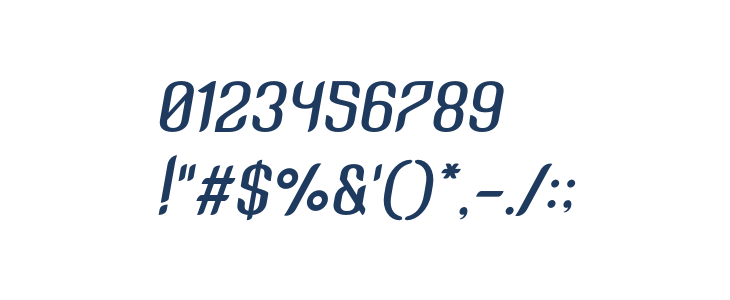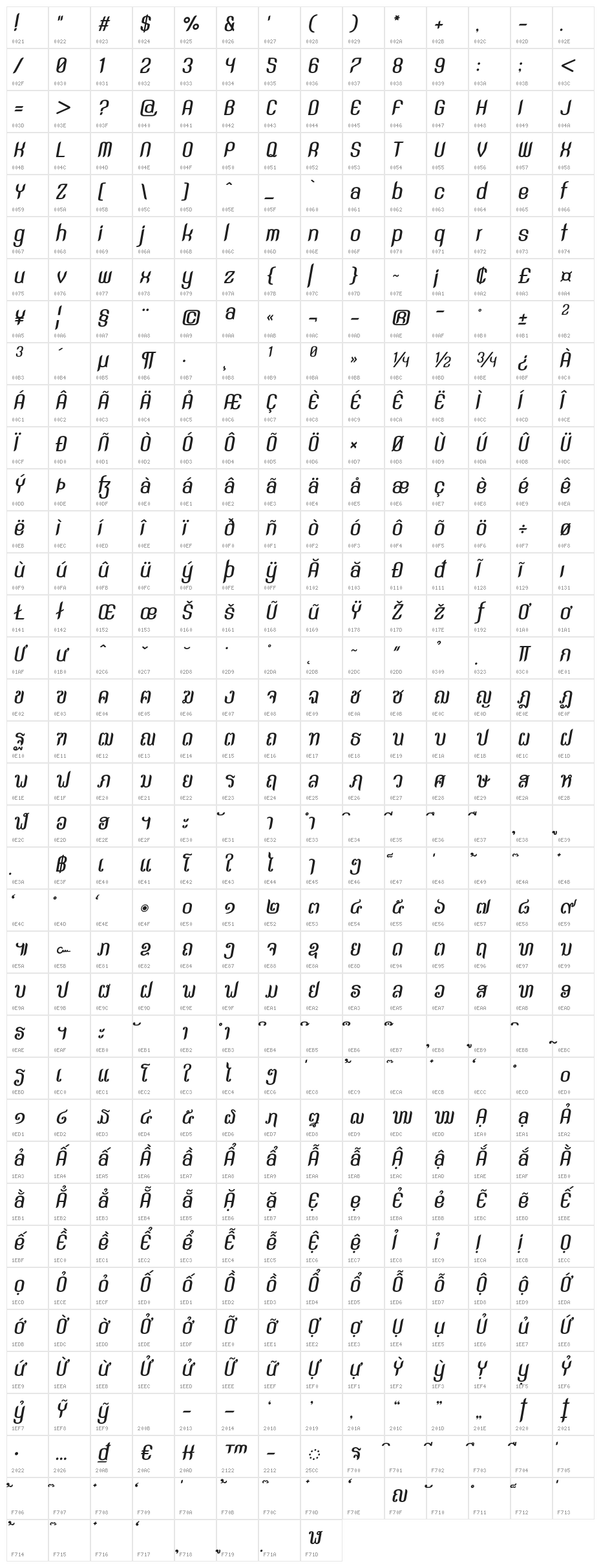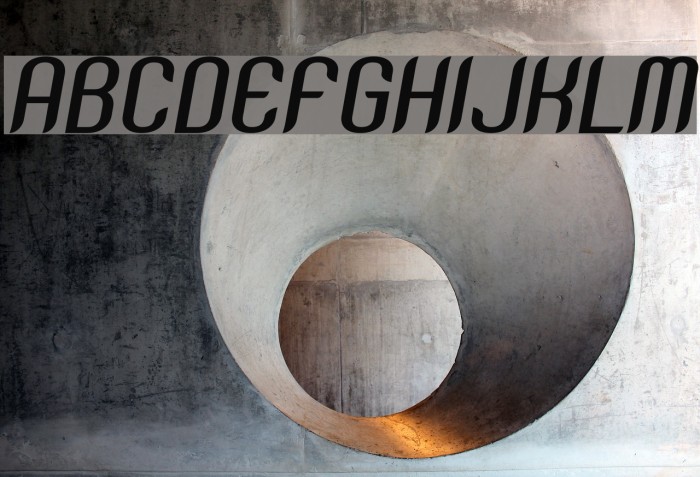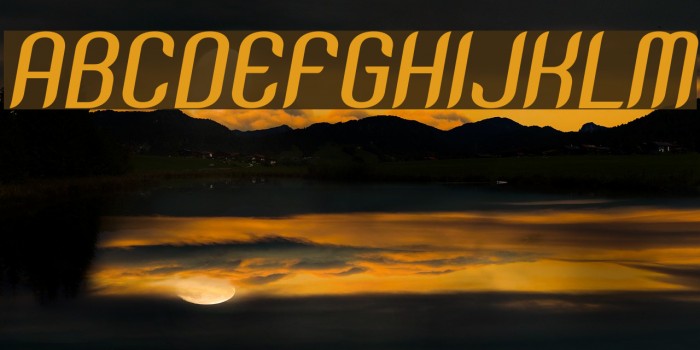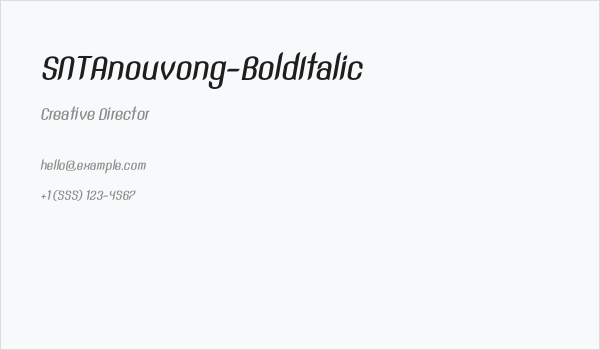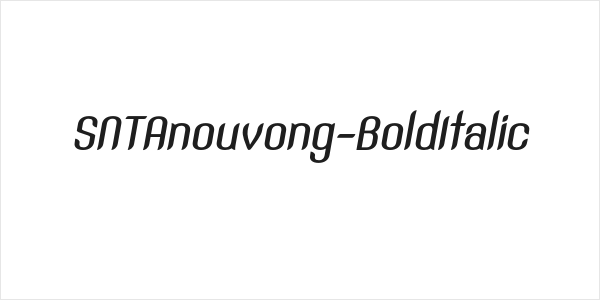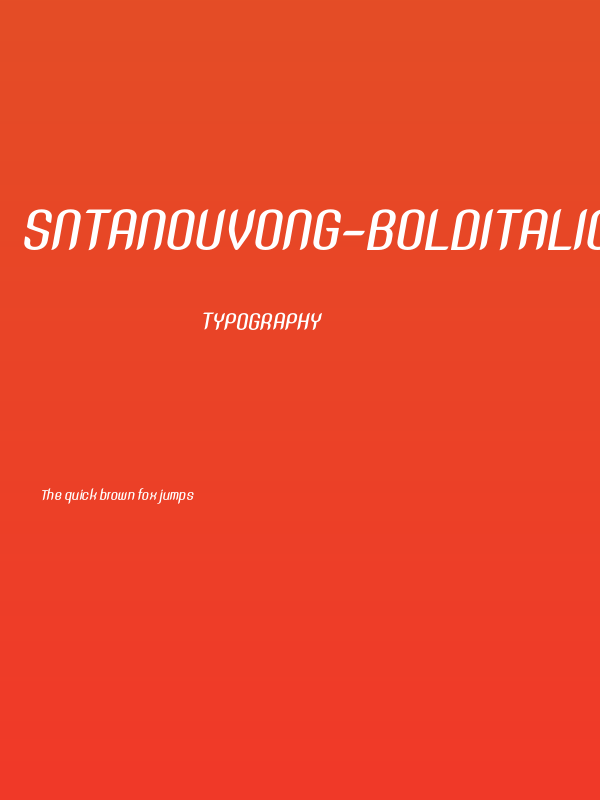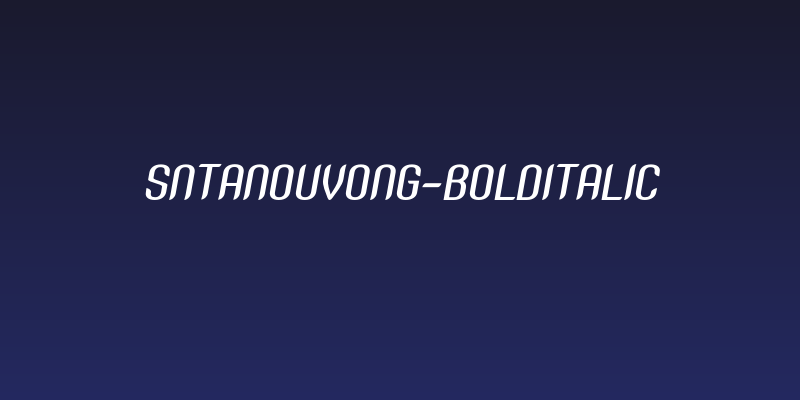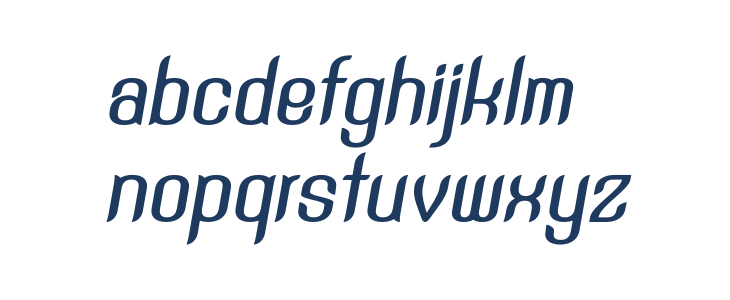
SNTAnouvong-BoldItalic Font
SNTAnouvong-BoldItalic Description
This font features a bold and italicized style, characterized by its smooth, flowing curves and slightly condensed letterforms. The uppercase letters are tall and elegant, while the lowercase letters maintain a consistent rhythm, enhancing readability. The numerals are distinct and well-proportioned, complementing the overall aesthetic. Special characters are designed with the same attention to detail, ensuring a cohesive look across all glyphs. This font's dynamic appearance makes it suitable for a variety of creative applications.
| Proposed Projects | Ideal for branding, advertising, and editorial design projects that require a modern and dynamic touch. |